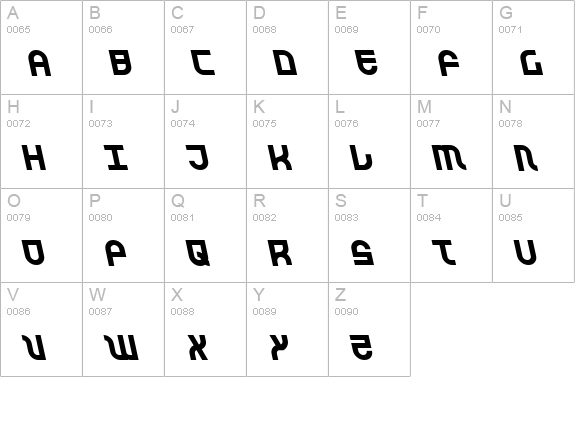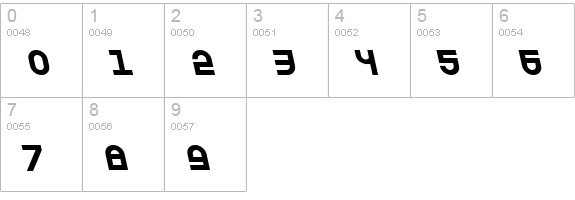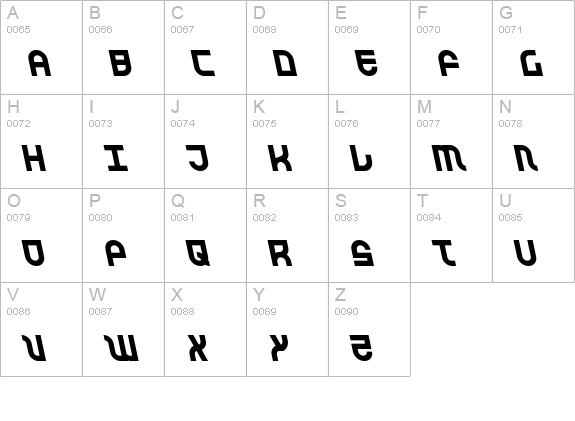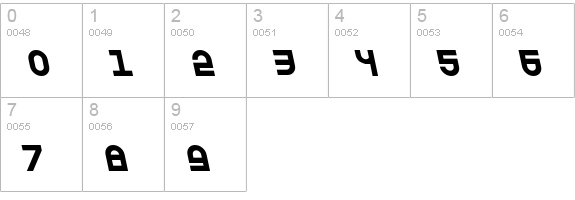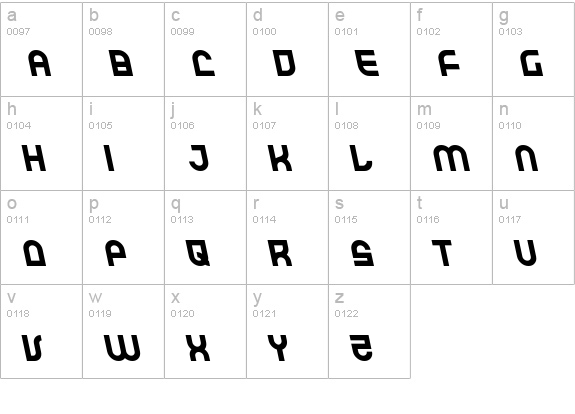
Trek Trooper Leftalic font is a stylish and modern typeface that combines futuristic elements with a touch of classic elegance. Its slanted italic design gives a dynamic and adventurous feel, making it perfect for projects that require a bold and daring look. The sleek lines and sharp edges of this font evoke a sense of exploration and innovation, making it ideal for sci-fi, technology, and gaming-related designs. What's even better is that Trek Trooper Leftalic font is available for free download at FontsMarket.com. Whether you're a designer looking to add a unique flair to your work or a creative individual wanting to make a statement, this font is sure to captivate and inspire. Don't miss out on the opportunity to enhance your projects with the bold and captivating Trek Trooper Leftalic font – download it now and let your creativity take flight!